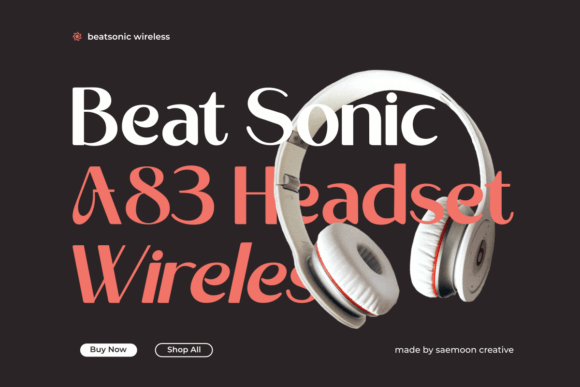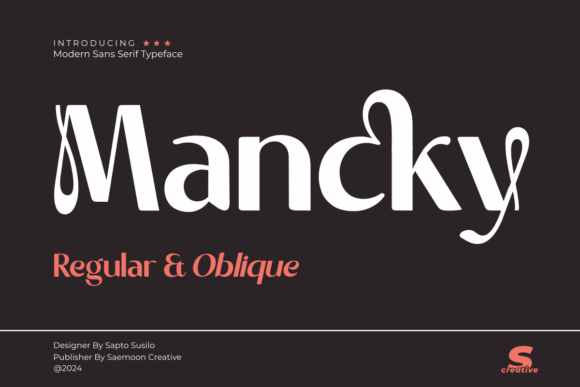
Mancky Font: Elegant Sans Serif for Modern Logo Design & Branding
About the Mancky Font
Elevate your designs with Mancky Font, a font that combines sophistication with readability. Mancky is a sans-serif font crafted with elegance and subtle curves, offering a captivating modern touch. Designed with love and dedication to the art of typography, Mancky is here to enhance the character and aesthetics of your designs.
With a slightly bold yet soft style, Mancky is perfect for a wide range of design needs, from logos and product branding to magazine titles and eye-catching headlines. This font exudes professionalism, elegance, and charm, making it the ideal choice for creating sophisticated and memorable designs.
Bring the power and beauty of typography to your creations with Mancky!
Mancky Font Usage Examples